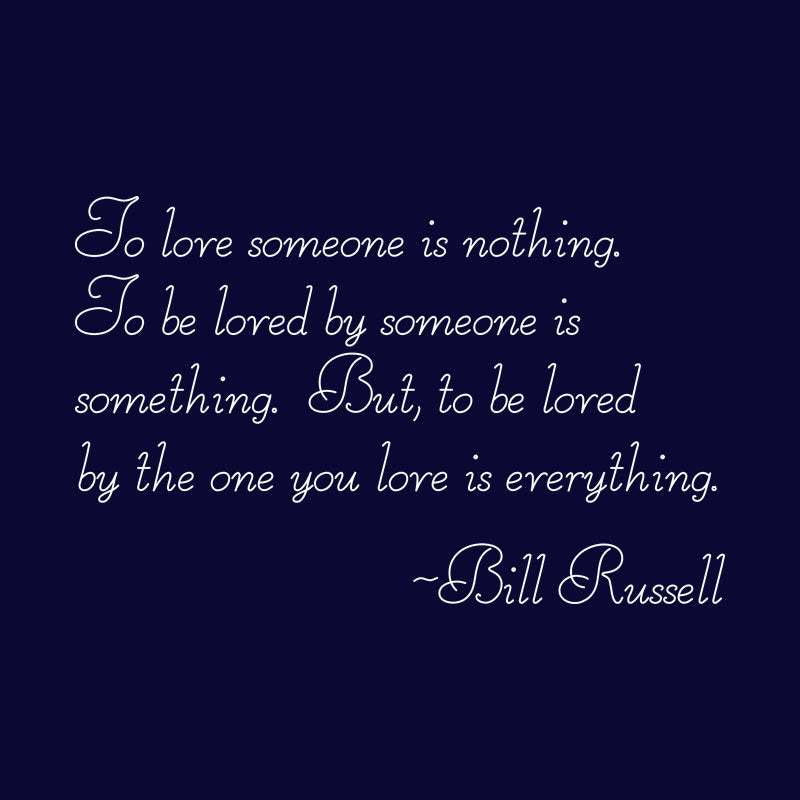
SLF Fanciful – Whimsical Single Line Script for Foil Quill & Engraving
SLF Fanciful is a whimsical single line script with graceful curls and playful movement—perfect when you want something pretty, expressive, and a little dramatic. It works beautifully for Foil Quill projects, greeting cards, invitations, journaling, and engraving designs that need a fancy finishing touch.
• Foil Quill and pen-tool lettering
• Invitations, greeting cards, journaling, and decorative projects